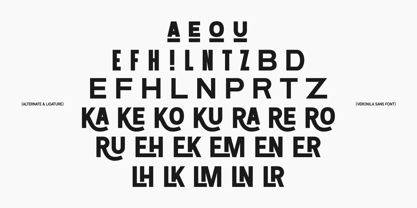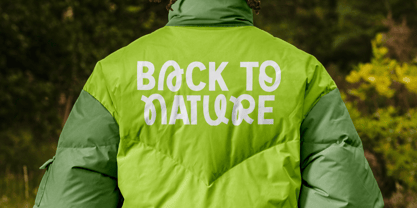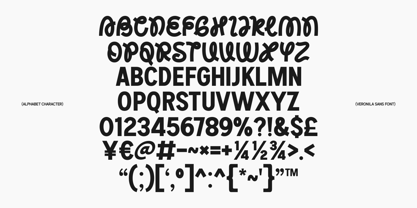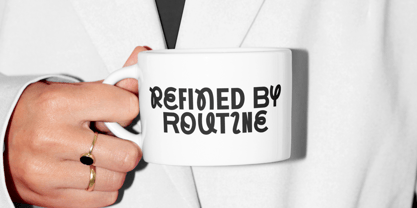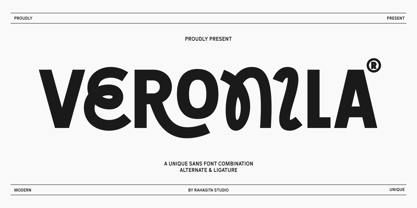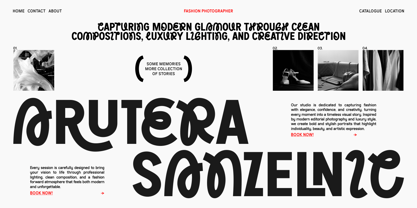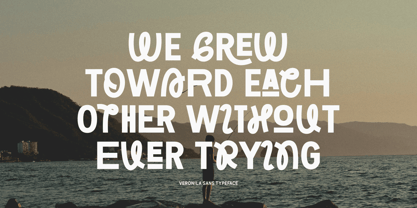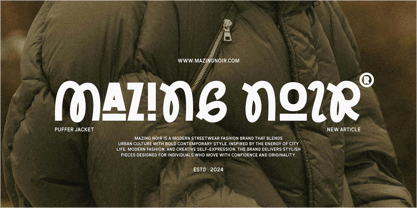
Veronila
by RahagitaType
The Veronila Font Family was designed by Setiadi Rahagita and published by RahagitaType. Veronila contains 1 styles. More about this family
Veronila is a unique bold sans-serif display typeface that breaks the mold of conventional typography. Created by Rahagita Studio, Veronila offers a powerful dual-character system — pairing clean, geometric uppercase letters with expressive, fluid alternate glyphs that carry an organic, almost hand-drawn energy. The result is a typeface that feels both modern and alive, making it ideal for brands that want to stand out with confidence and originality.
From streetwear apparel and fashion editorials to outdoor signage, product packaging, and digital campaigns — Veronila adapts effortlessly across contexts while maintaining a consistently bold and memorable visual presence.